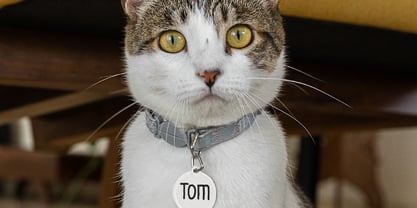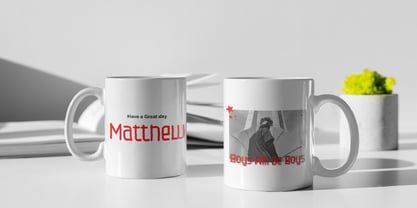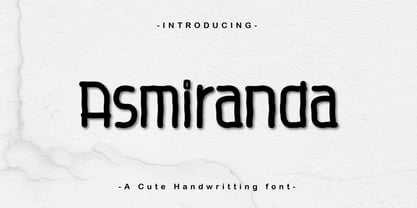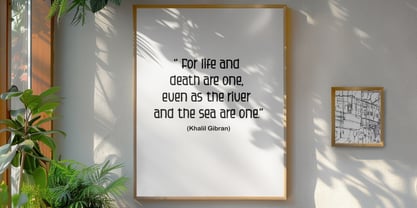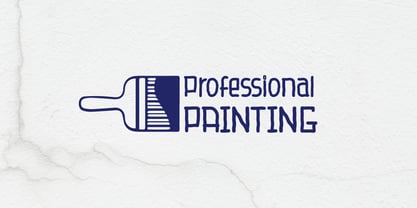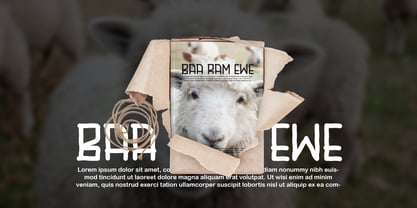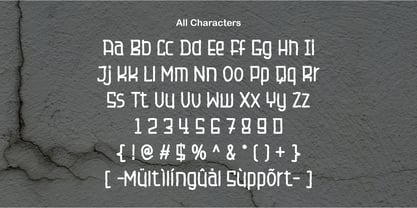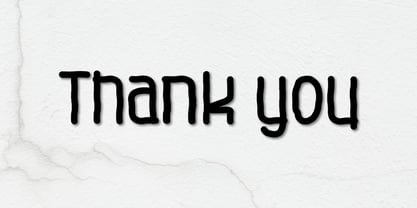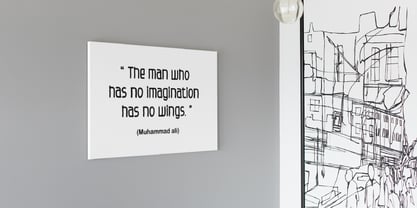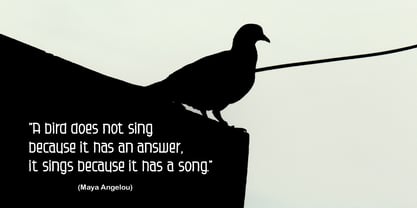
Asmiranda Handwriting
von Patlot Digital Studio
Die Schriftfamilie Asmiranda Handwriting wurde von Gugun Gunawan entworfen und von Patlot Digital Studio veröffentlicht. Asmiranda Handwriting enthält 1 Stile.
Immerse yourself in the charm and fluidity of Asmiranda Handwriting, a font that echoes the aesthetics of genuine human penmanship. Intricately weaving together classic handwriting styles with a contemporary edge, Asmiranda is a versatile choice that adds personal touch to a spectrum of creative expressions – be it heartfelt greeting cards, unique gift tags, riveting books, or inspiring quotes. Surrender to the charm of Asmiranda Handwriting and you’ll be astounded by the impressive results it renders to your projects.
Designer: Gugun Gunawan
Herausgeber: Patlot Digital Studio
Foundry: Patlot Digital Studio
Eigentümer des Designs: Patlot Digital Studio